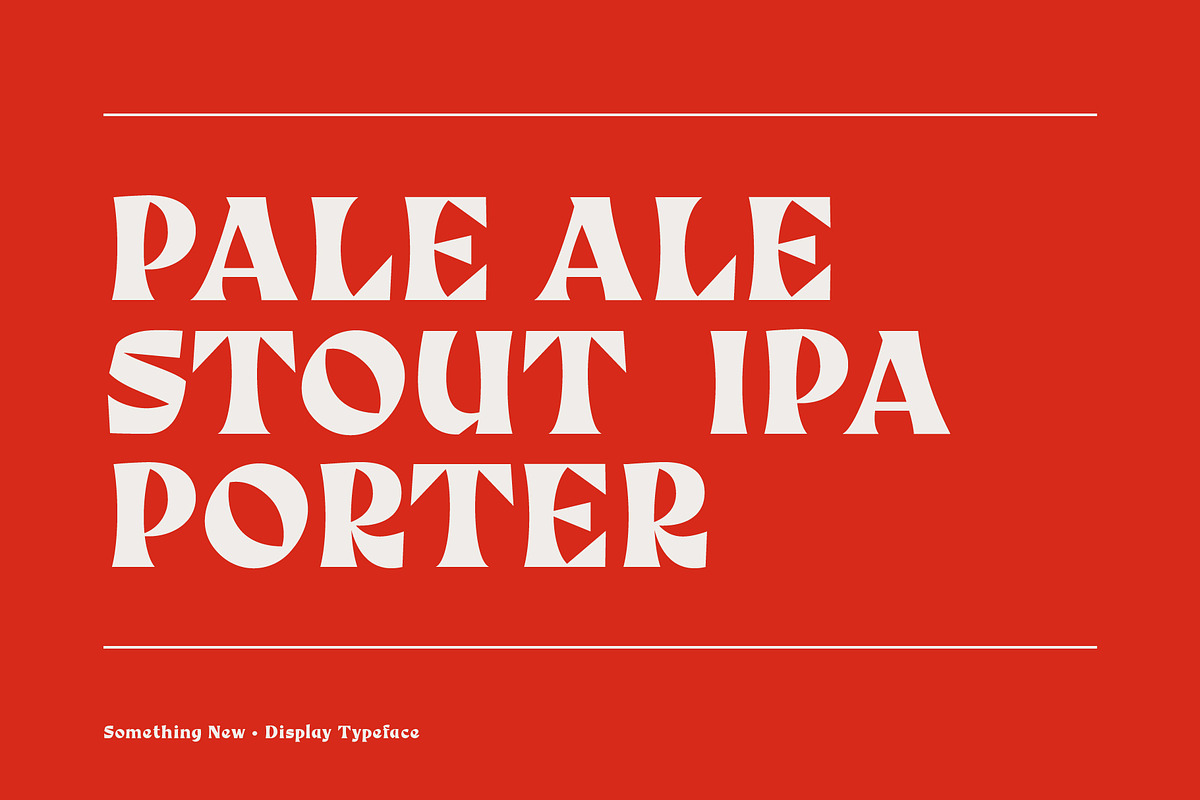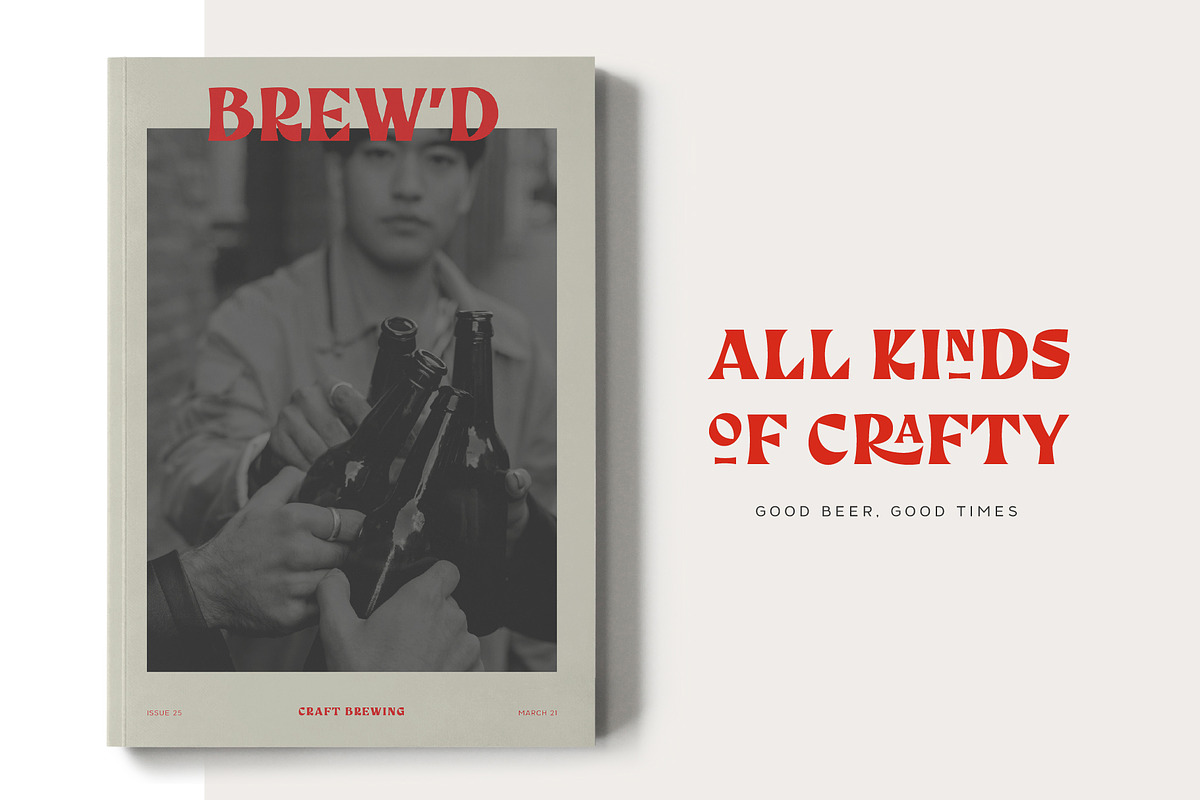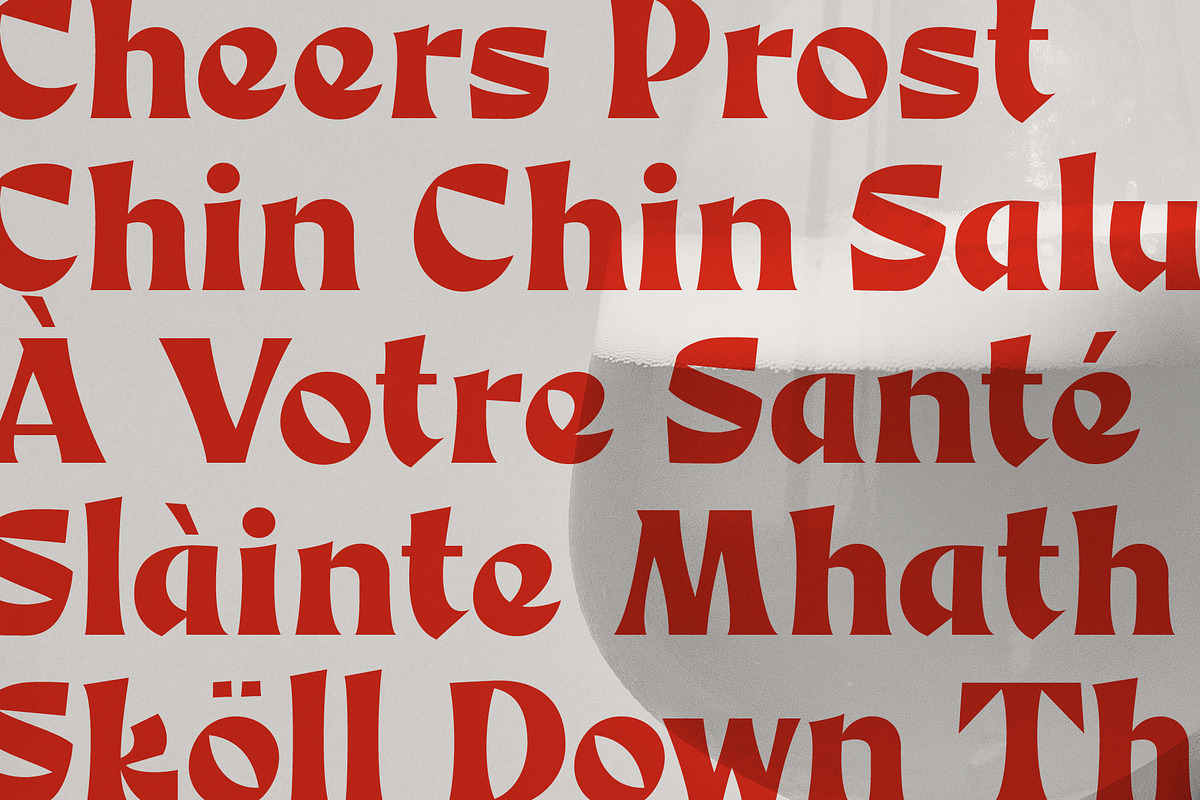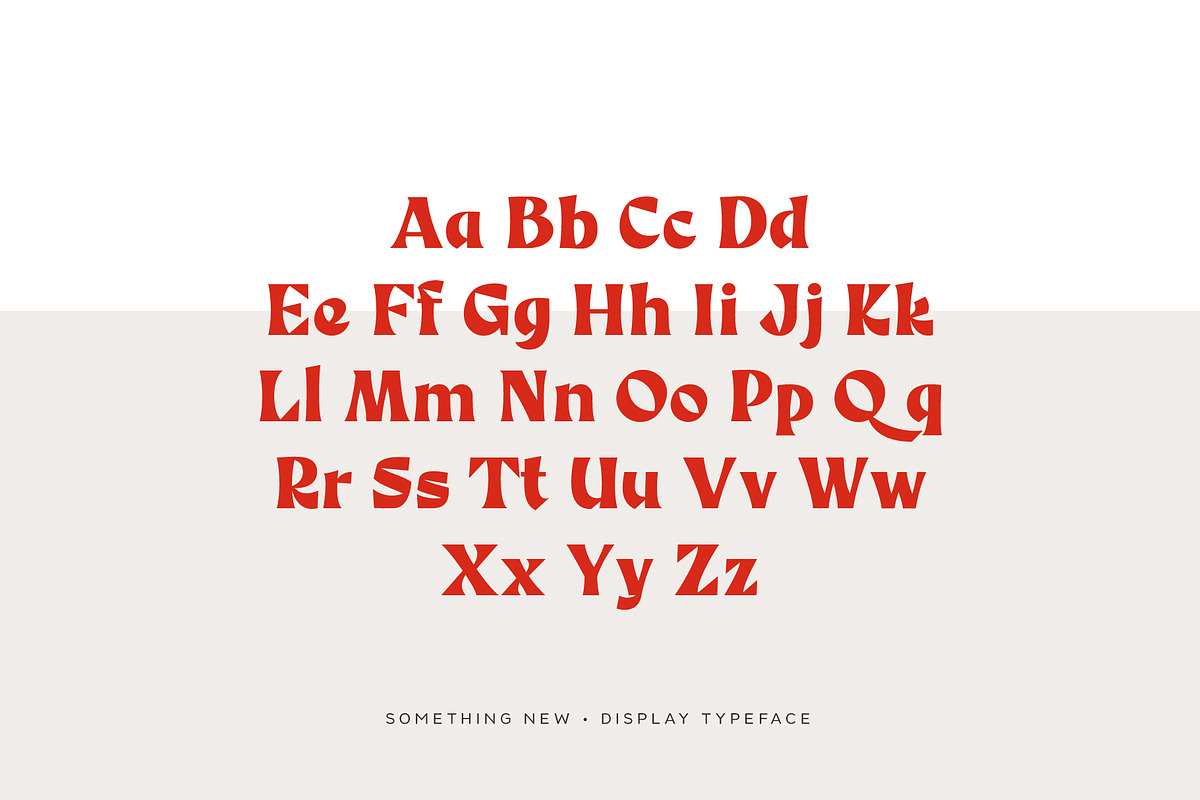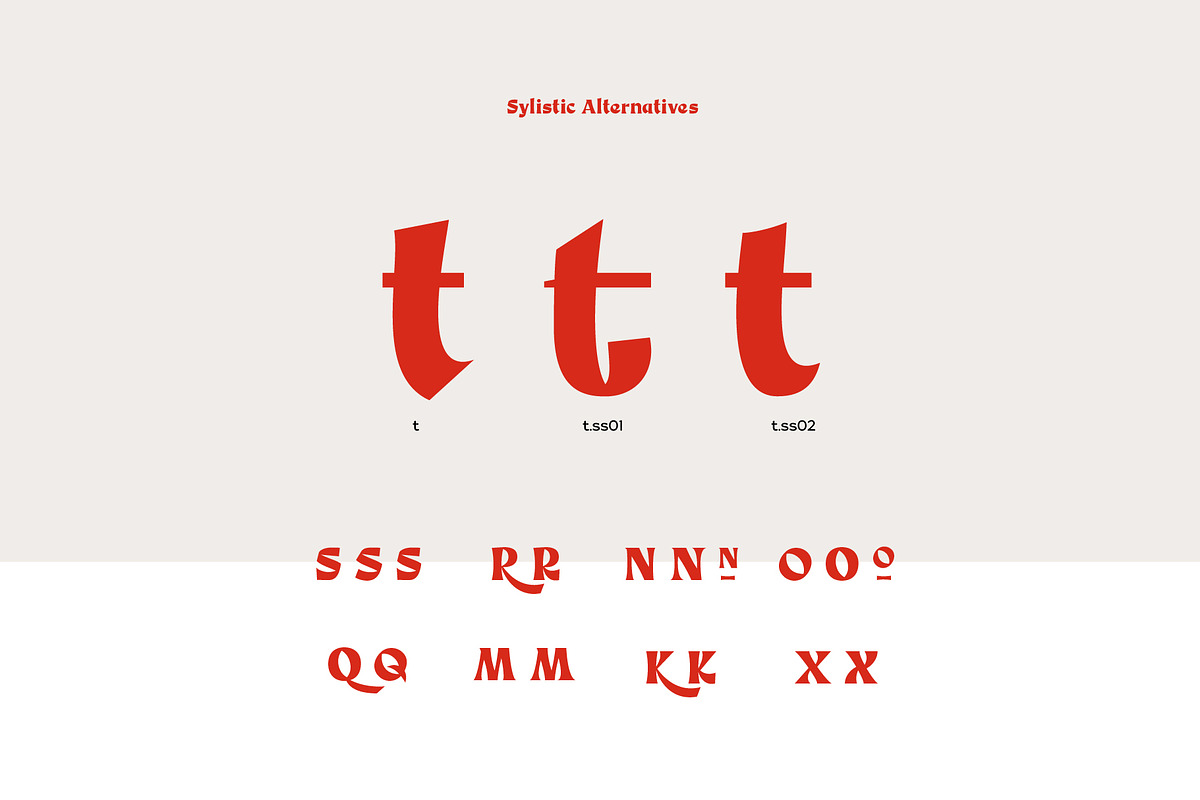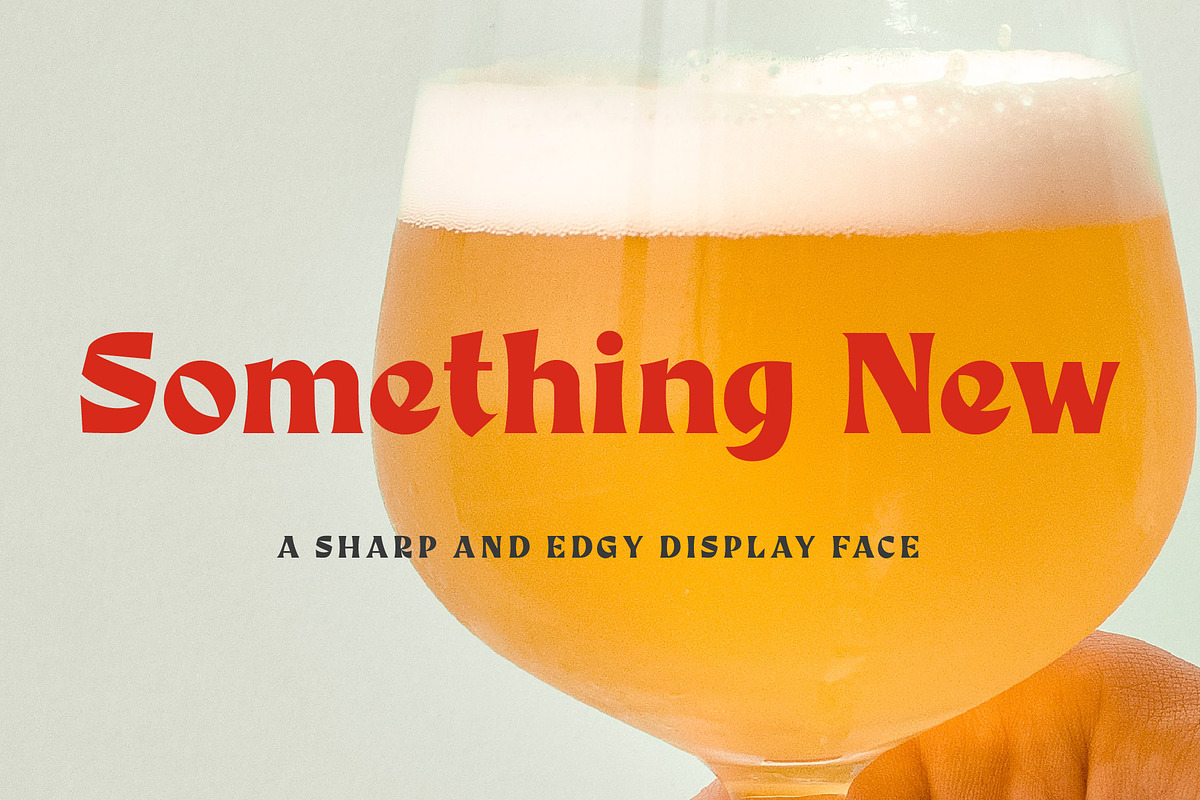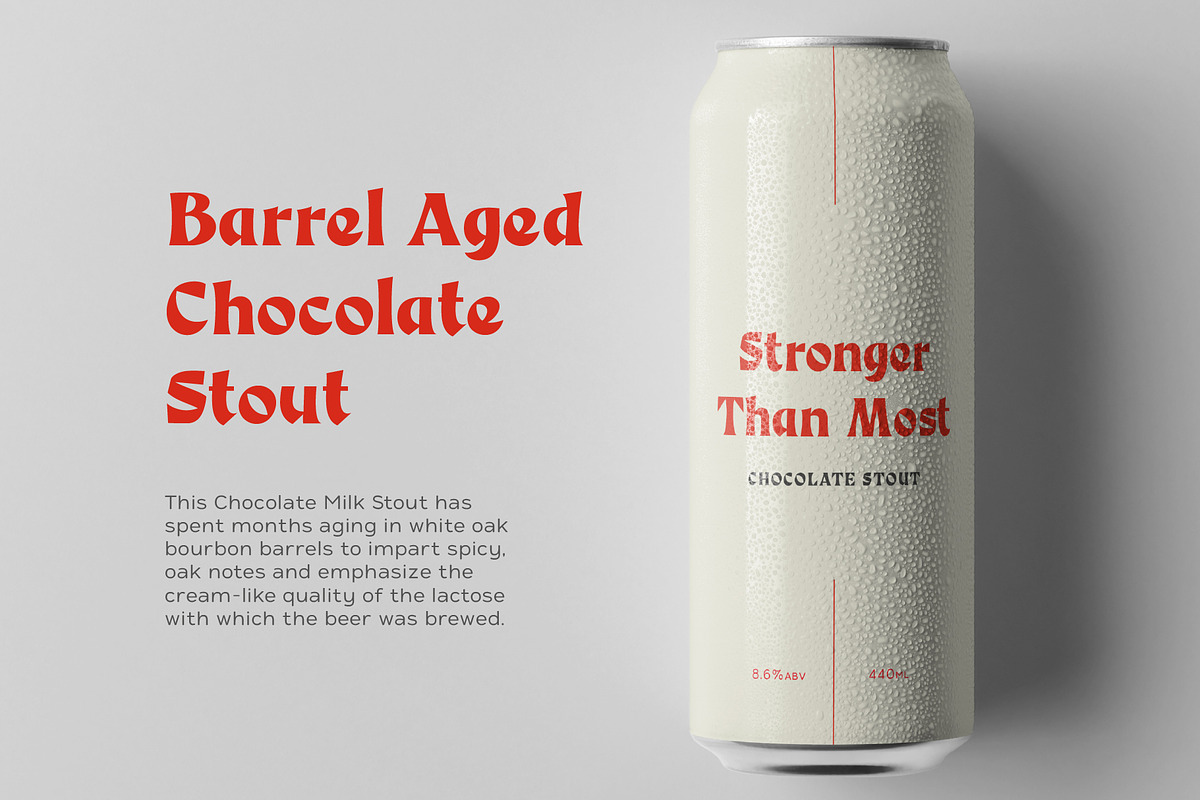
Something New A Serif Blackletter
Just added - Italic version
Something New, a serif blackletter, has been designed with logo designers and typographers firmly in mind. This feature-packed display font is a perfect addition to your design arsenal, ready for your next logotype, heavy heading or beer label.
"A modern mix of serif and blackletter with a touch or vintage"
- Regular & Italic
- Stylistic sets & alternatives.
- Discretional ligatures.
- Covers; Basic, Western European, Central European and South-Eastern European languages.
- Over 400 glyphs.